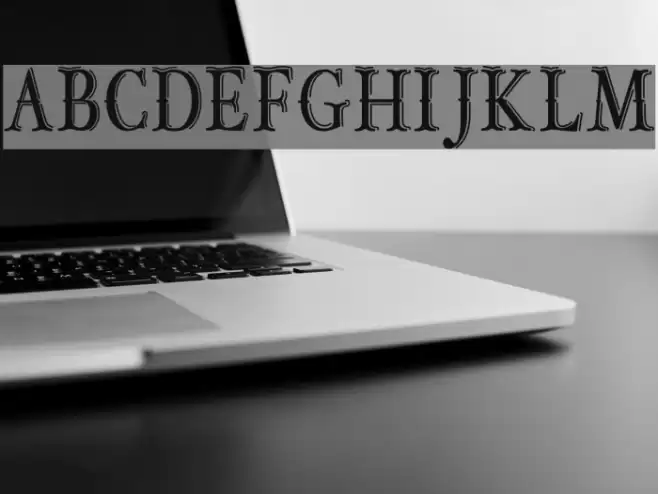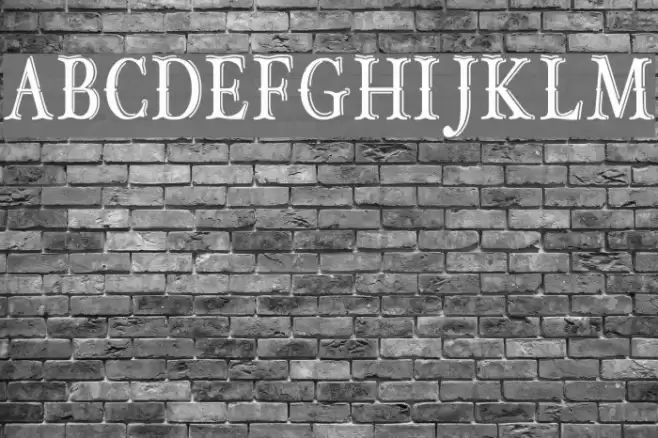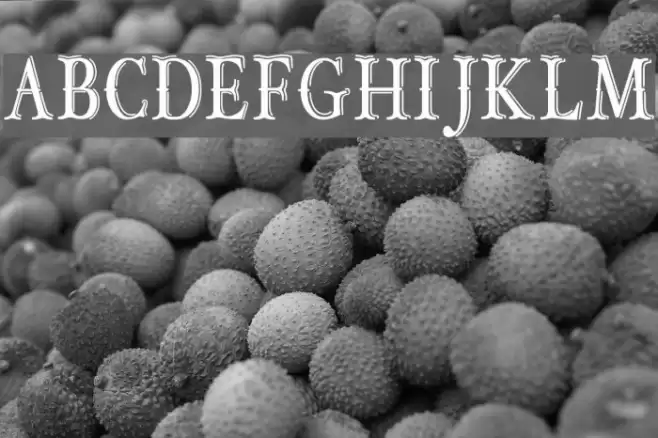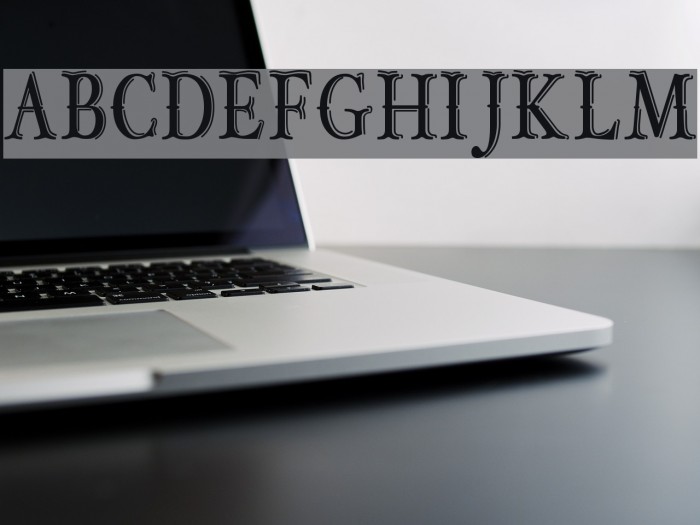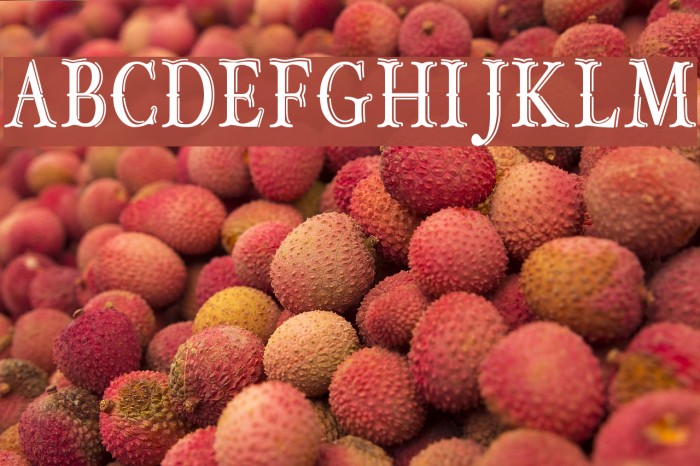
OLD BOB JUNIOR_demo Font
OLD BOB JUNIOR_demo Description
This font features a bold and decorative style, characterized by its intricate and ornate serifs. Each letter is designed with a high level of detail, giving it a vintage and classic appearance. The strokes are thick and consistent, providing a strong visual impact. The overall design is reminiscent of traditional serif fonts but with an added flair that makes it stand out. The uppercase letters are particularly striking, with their elaborate curves and embellishments, making them ideal for attention-grabbing headlines or titles.
A bold, decorative serif font with intricate details and a vintage flair from Uncategorized fonts.
- Proposed Projects: This font is perfect for projects that require a classic and elegant touch, such as wedding invitations, historical publications, or luxury branding. It can also be used effectively in logo design or for creating standout headlines in print and digital me
- Overall Style: Vintage